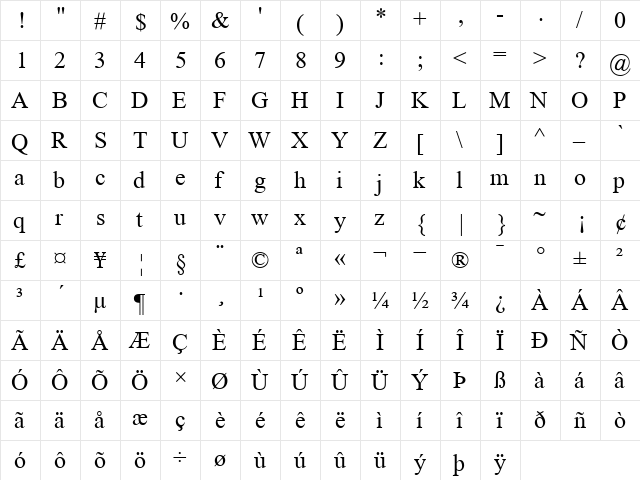
TimesNewRomanPS Roman Font Preview
TimesNewRomanPS Roman
Design Context for TimesNewRomanPS Typeface
TimesNewRomanPS offers clean, dependable letterforms without strong stylistic allegiance, making it a practical choice for designers who need flexibility.